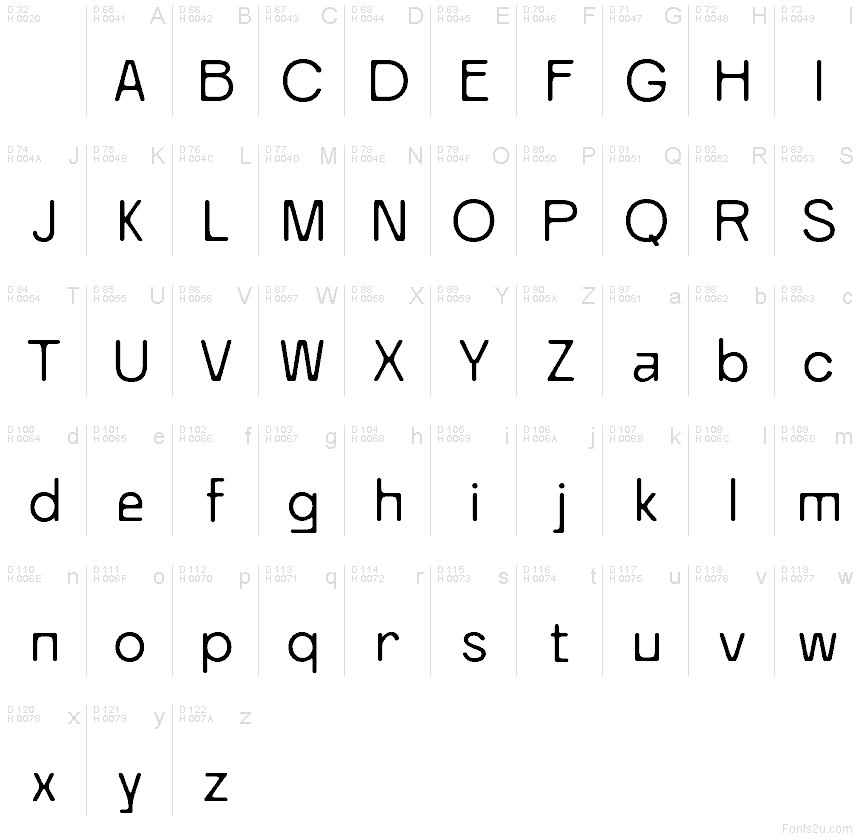
RanbergRoundedDrawn-Regular Demo
Ranberg Rounded Drawn font by Craft Supply Co. is a clean and geometric sans serif font with a minimalistic touch. Its modern look makes it ideal for contemporary applications where attention to detail, simplicity, and legibility are of importance. These features make this font legible when applied to any digital or print design project.
In addition to being minimalistic in style, Ranberg Rounded Drawn has its corners slightly rounded for an elegantly soft appearance. The free sans serif has many possible applications: tech branding; digital interfaces; business cards; department store logos; coffee shop designs; museums and galleries; hospitals; organisation sites (HEB etc); official institutions (town hall etc.).